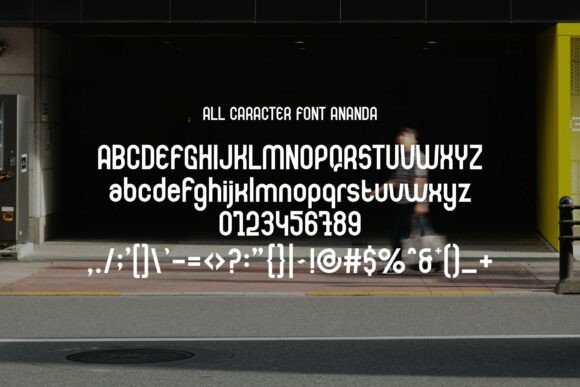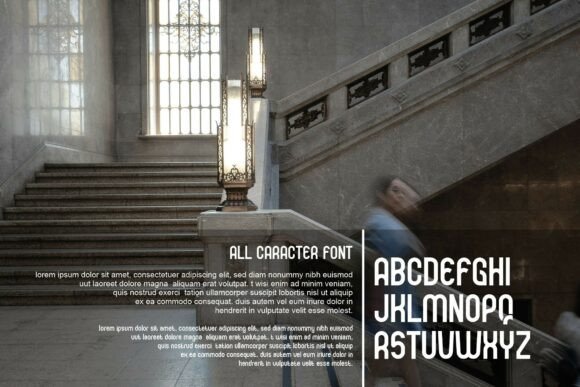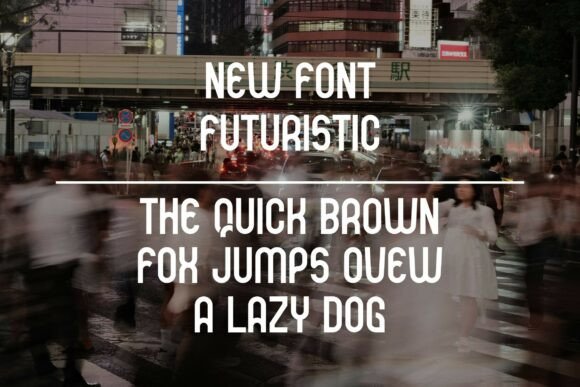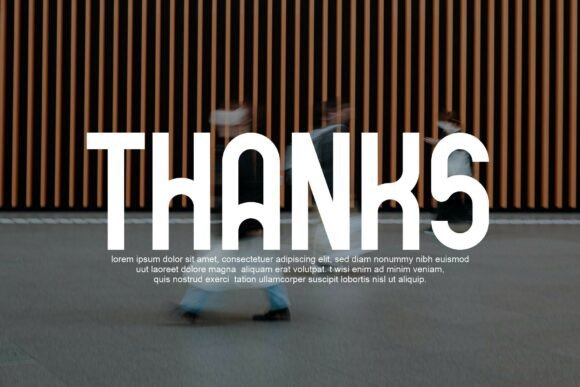
Introducing Ananda Font: Elevate Your Designs with a Touch of Elegance
In the world of typography, fonts play a crucial role in conveying the message and aesthetic of a design. For designers and crafters, finding the perfect font can be a daunting task. However, if you’re looking for a sans serif font that exudes a charming touch of style, look no further than Ananda Font. With its natural and unique style, Ananda Font is incredibly fitting for a large pool of designs, limited only by your imagination.
The Characteristics of Ananda Font
Ananda Font is a sans serif font, which means it doesn’t have the small lines or flourishes at the ends of the letters. This gives it a clean and modern look, making it perfect for designs that require a fresh and contemporary feel. However, what sets Ananda Font apart from other sans serif fonts is its charming touch of style. The font has a unique and natural flair that adds a touch of elegance to any design.
Versatility of Ananda Font
One of the standout features of Ananda Font is its versatility. Its natural and unique style makes it incredibly fitting for a wide range of designs, from digital media to print materials. Whether you’re designing a logo, brochure, or website, Ananda Font is sure to make your design stand out. The font is also highly legible, making it perfect for body text, headlines, and titles.
Design Possibilities with Ananda Font
The possibilities are endless when it comes to designing with Ananda Font. Here are a few ideas to get you started:
- Branding and Logo Design: Use Ananda Font to create a unique and memorable logo for your brand. The font’s charming touch of style makes it perfect for creating a professional and elegant brand identity.
- Digital Media: Ananda Font is perfect for digital media, including social media graphics, email newsletters, and website headers. Its clean and modern look makes it sure to grab the attention of your audience.
- Print Materials: Use Ananda Font for print materials such as brochures, flyers, and business cards. The font’s unique style makes it perfect for creating eye-catching and memorable print materials.
- Crafting and DIY Projects: Ananda Font is also perfect for crafters and DIY enthusiasts. Use the font to create beautiful and unique signs, banners, and other decorative items.
Why Choose Ananda Font?
So, why choose Ananda Font over other fonts? Here are a few reasons:
- Unique Style: Ananda Font has a unique and natural style that sets it apart from other fonts.
- Versatility: The font is highly versatile and can be used for a wide range of designs.
- Legibility: Ananda Font is highly legible, making it perfect for body text, headlines, and titles.
- Elegance: The font’s charming touch of style adds a touch of elegance to any design.
In conclusion, Ananda Font is a sans serif font with a charming touch of style that is sure to elevate your designs. Its natural and unique style makes it incredibly fitting for a large pool of designs, limited only by your imagination. Whether you’re a designer, crafter, or DIY enthusiast, Ananda Font is a great choice for any project. So, why not give it a try and see the difference it can make in your designs?
Get Creative with Ananda Font
Ready to get creative with Ananda Font? Here are a few tips to get you started:
- Experiment with Different Sizes: Try using Ananda Font in different sizes to create visual interest and hierarchy in your design.
- Play with Colors: Experiment with different colors to find the perfect combination that complements your design.
- Mix and Match: Try pairing Ananda Font with other fonts to create a unique and interesting typography combination.
With Ananda Font, the possibilities are endless. So, don’t be afraid to get creative and push the limits of what’s possible. Happy designing!